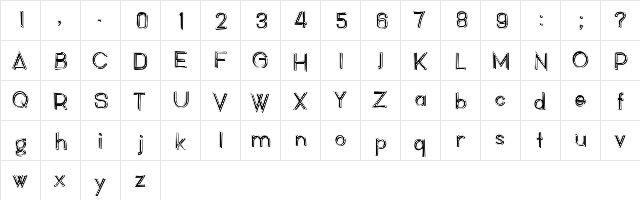
Noix Regular
Design Context for Noix Typeface
Noix is a composed and adaptable typeface that performs quietly and consistently across a wide range of design contexts.